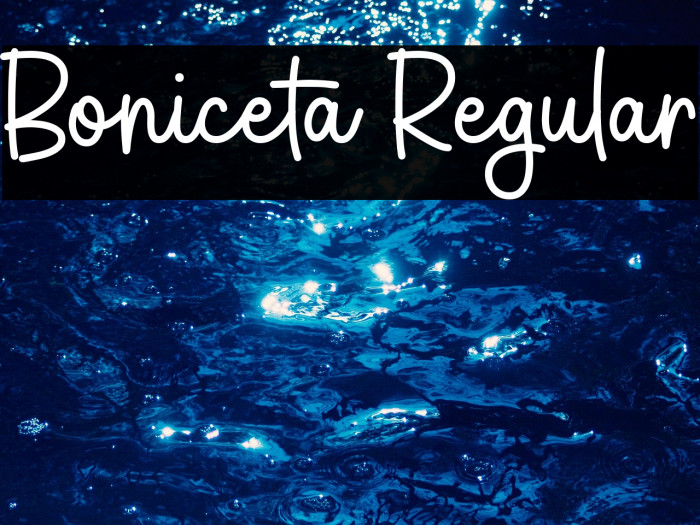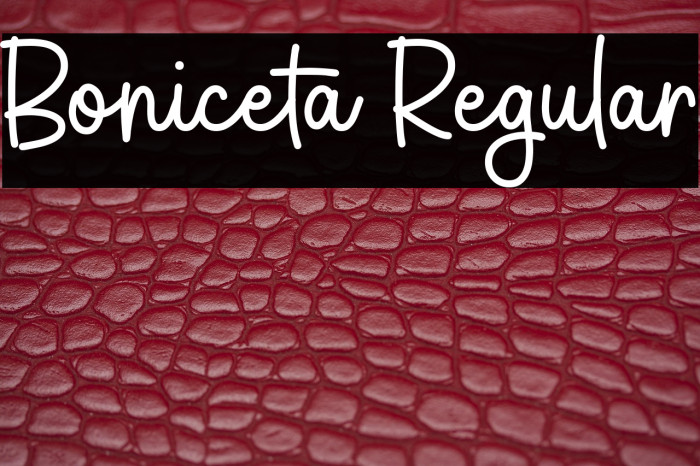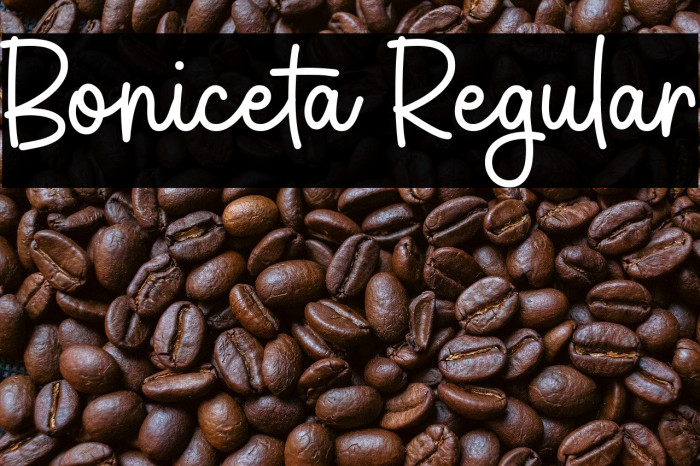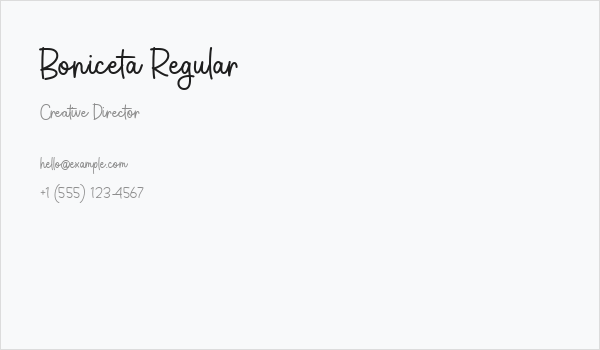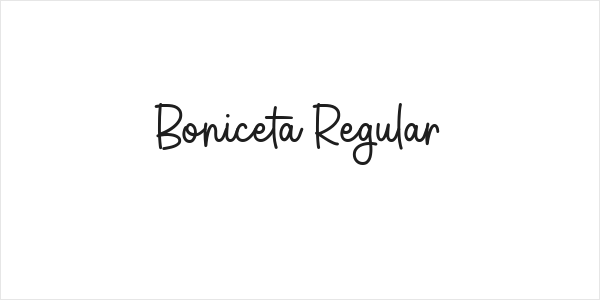
Boniceta Regular Font
Boniceta Regular Description
This font features a playful and casual handwritten style, characterized by its smooth, flowing lines and slightly irregular letterforms. The uppercase letters are tall and narrow, while the lowercase letters maintain a consistent height, adding to the font's approachable and friendly appearance. The numerals are clear and legible, matching the overall style with a slight slant. Special characters are well-integrated, maintaining the font's cohesive look. The overall design is informal yet stylish, making it suitable for a variety of creative applications.
| Overall Style | Casual |
| Use Case | Logos, Headlines, Informal text |
| Proposed Projects | Ideal for greeting cards, invitations, personal branding, and social media graphics. |